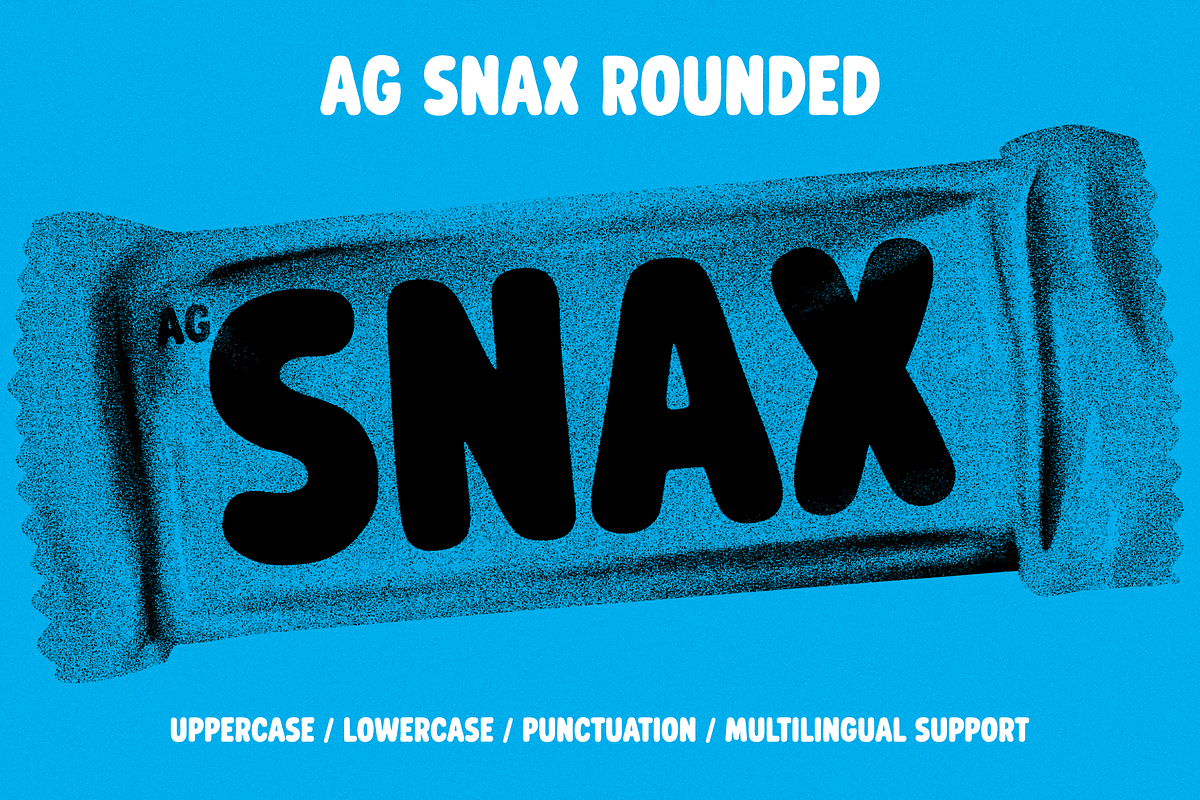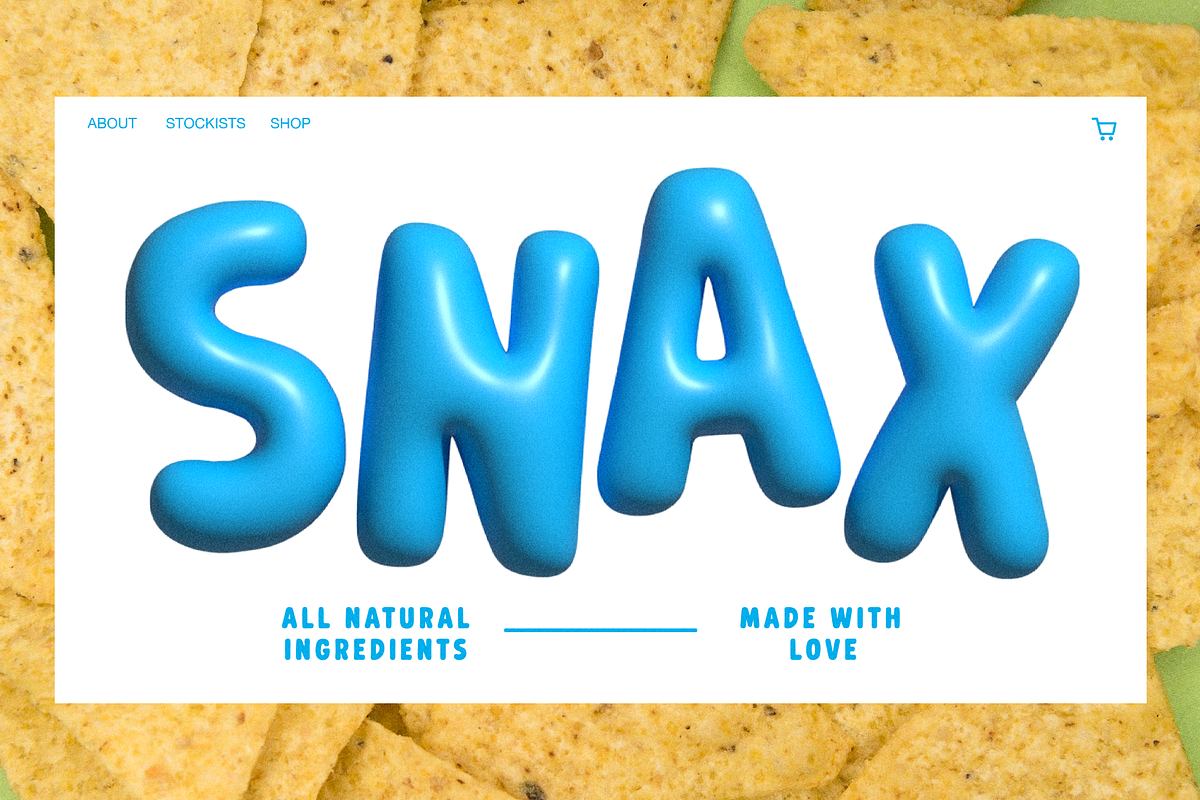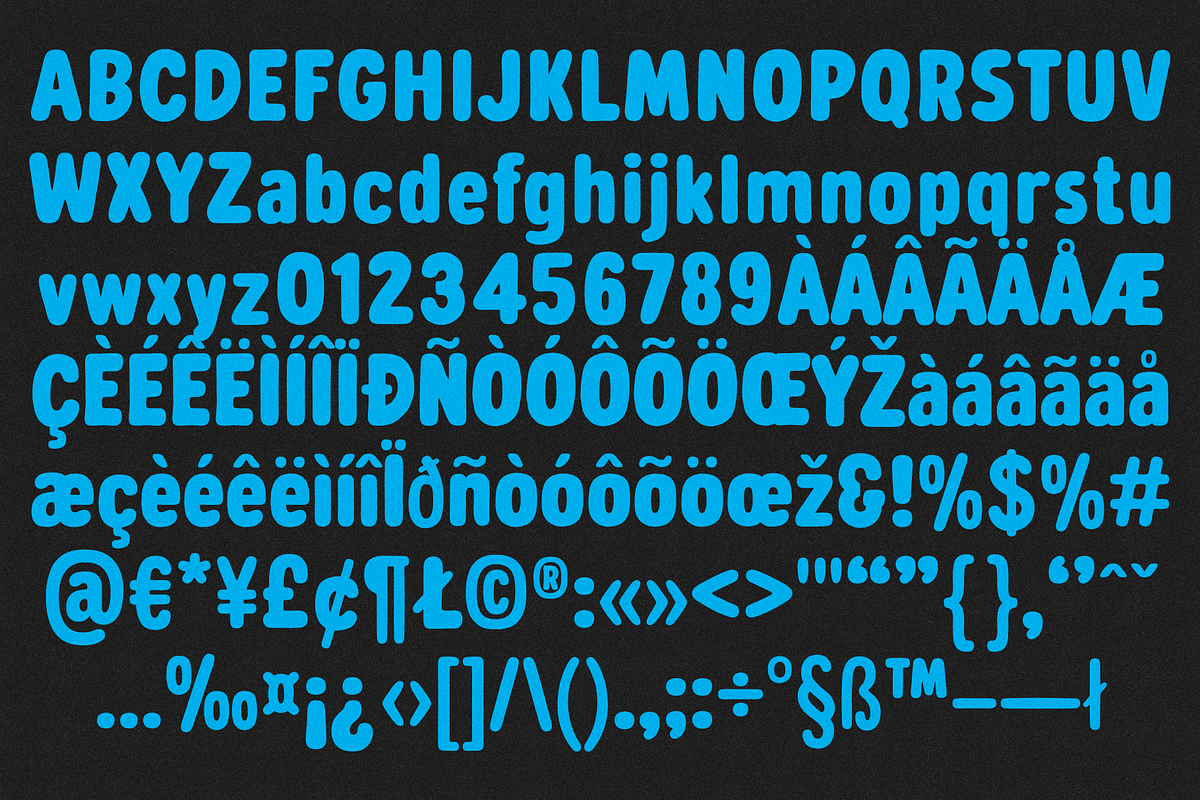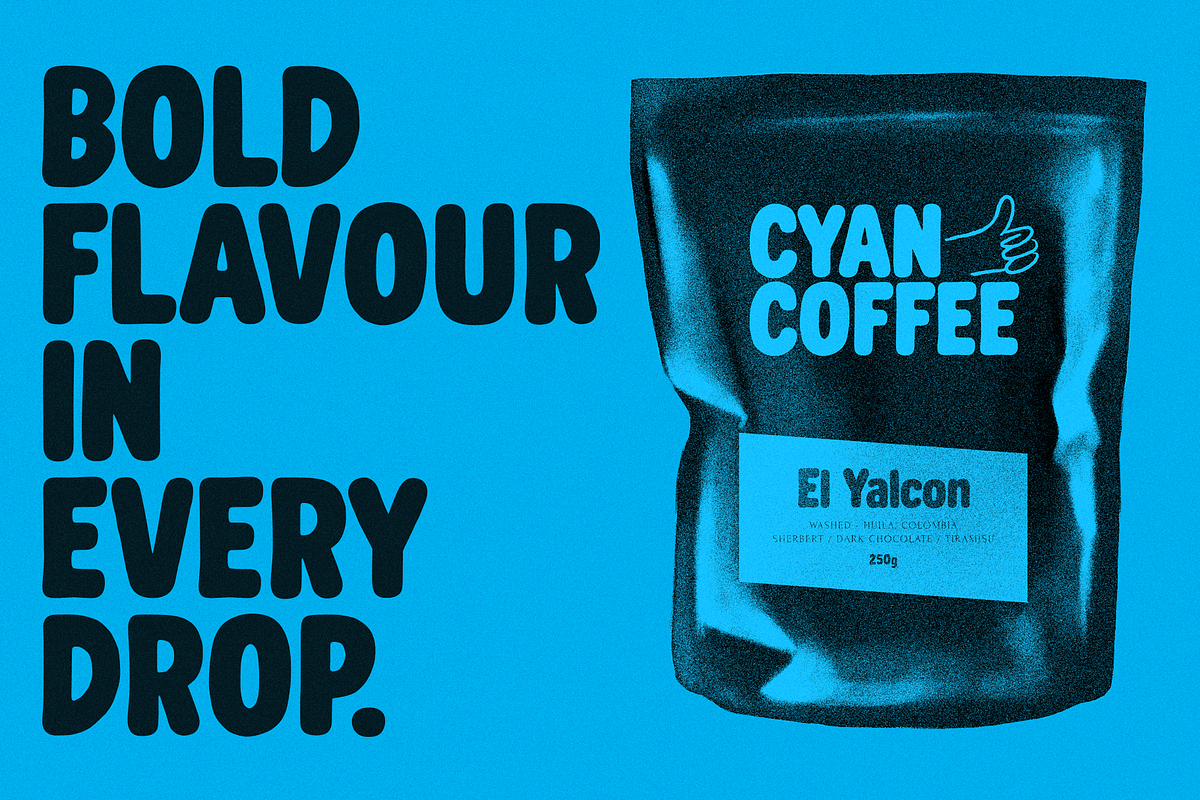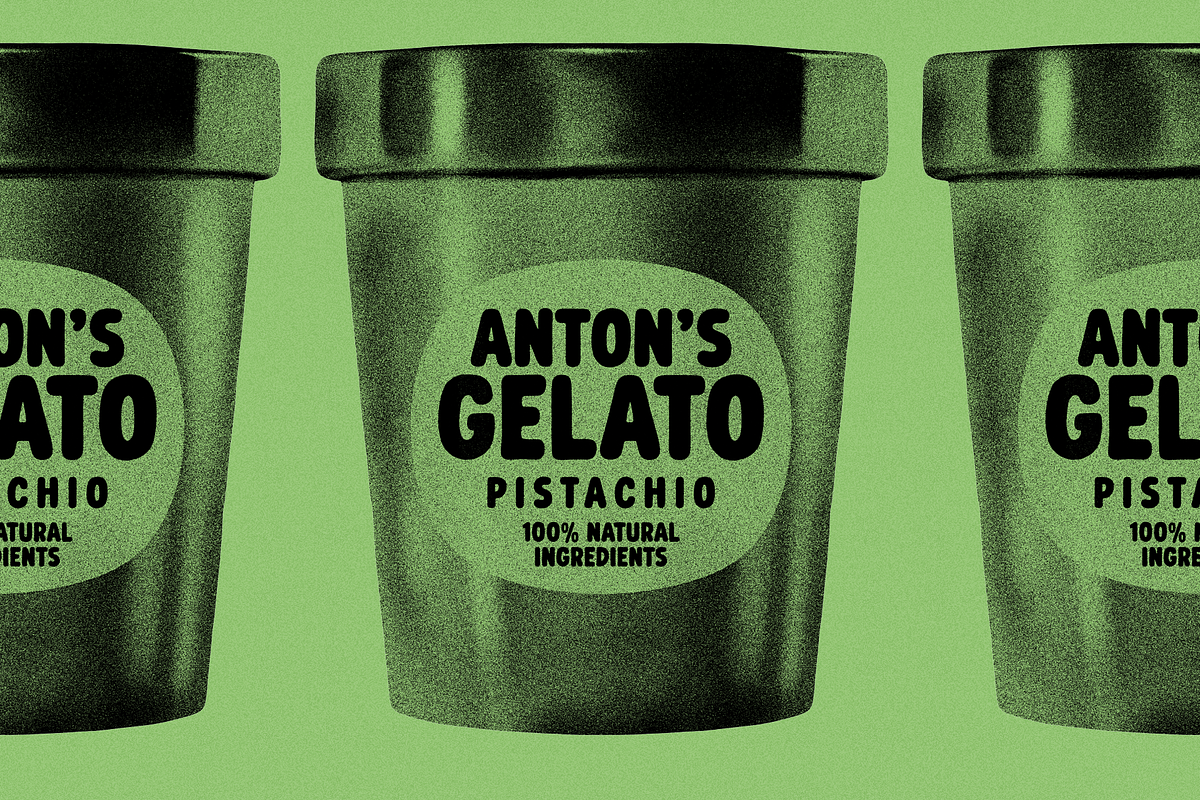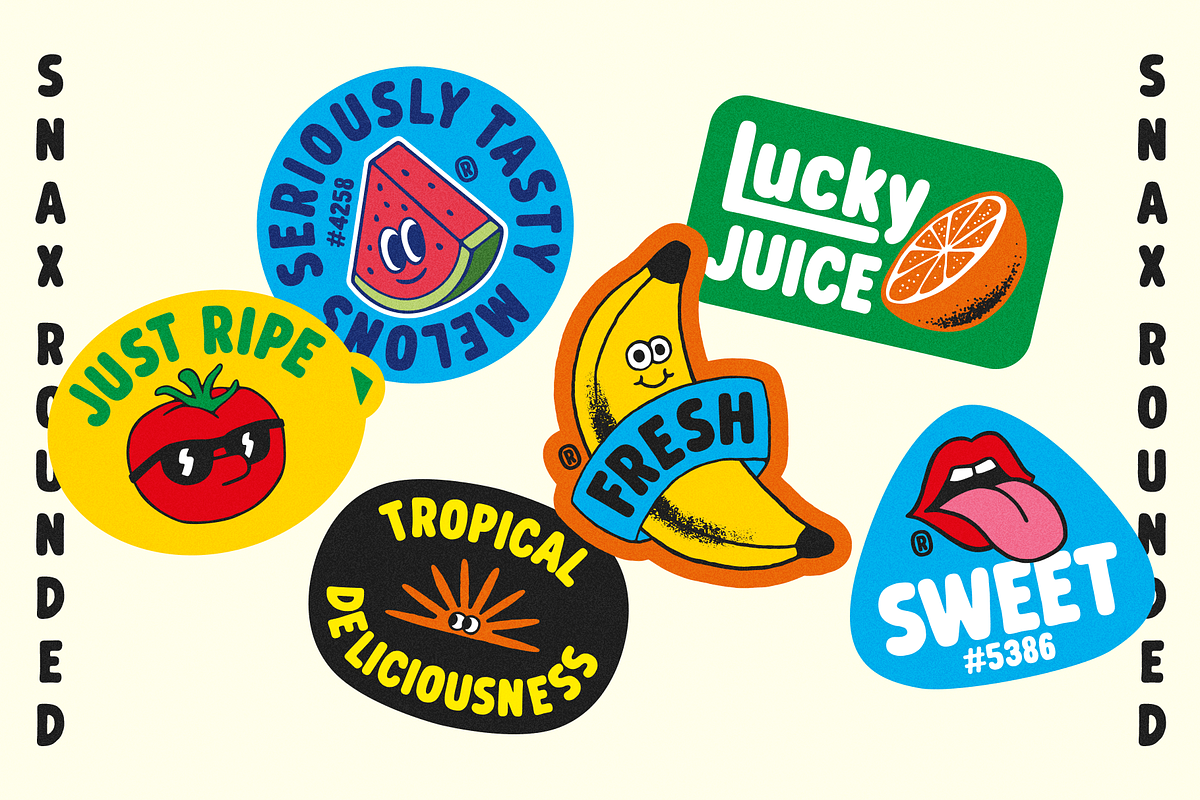
AG SNAX ROUNDED
A friendly font with just enough quirk that makes it perfect for packaging or branding projects needing a modern and playful feel.
UPPERCASE / LOWERCASE / PUNCTUATION / MULTILINGUAL SUPPORT.